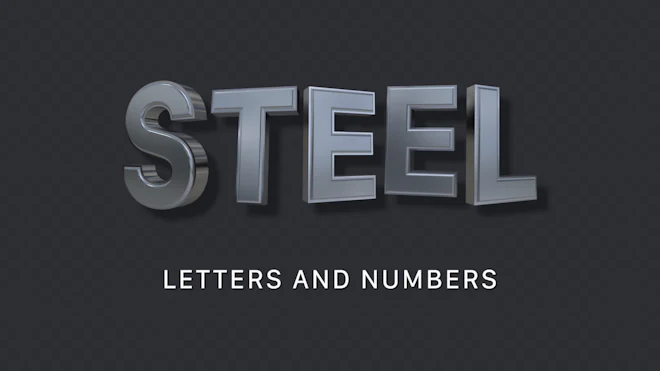
This stock motion graphics video pack includes 62 clips of steel lowercase and uppercase letters and numbers on a transparent alpha channel in a seamless loop.